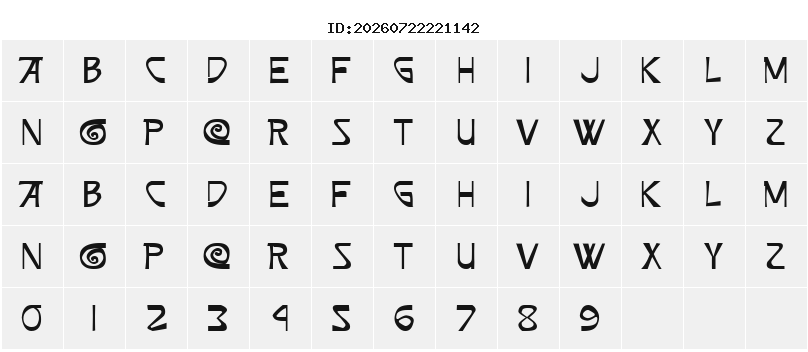
• Font Name: Morte e Vida Severina
• Full Font Name: Morte e Vida Severina
About Morte e Vida Severina.ttf
Morte e Vida Severina.ttf is a modern, elegant sans-serif font designed for ultimate readability and visual harmony. Perfect for branding, headlines, web design, and print materials.